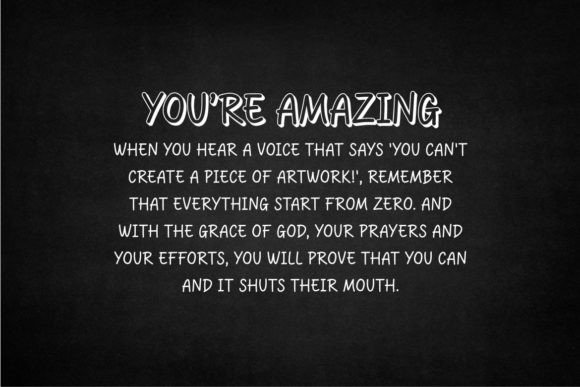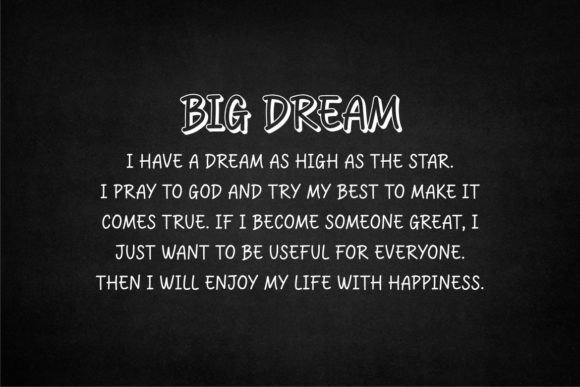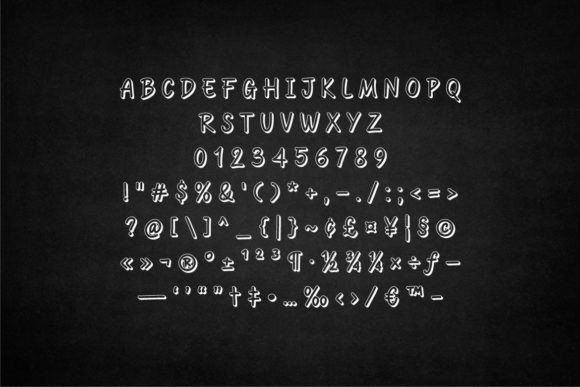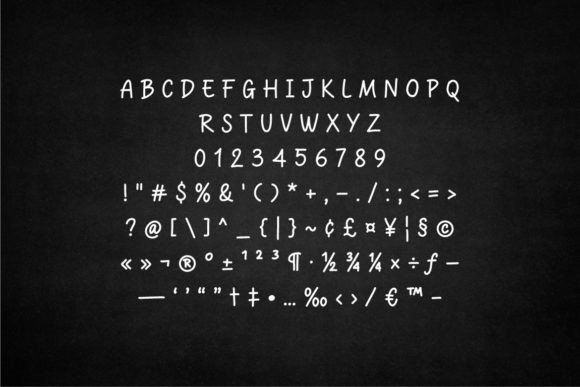
Penguines Font – Free Download
Introduction to Penguines Font
**Penguines** is a simple handwritten sans serif font.
Penguines can be used in any work such as a storybook, comic book, school, flyer, book title, advertisement, social media content, logo, and many more .